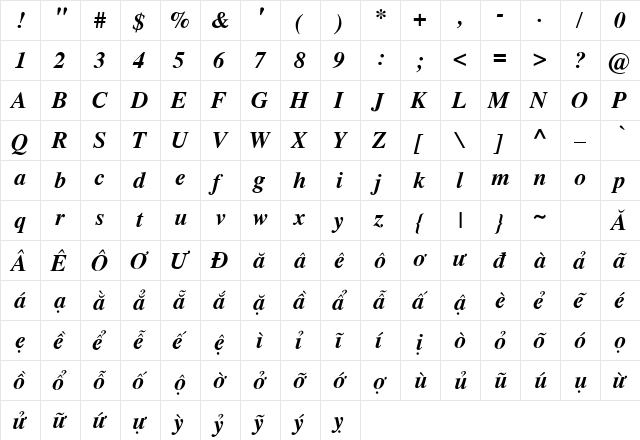
.VnTime Bold Italic
Design Context for .VnTime Typeface
.VnTime takes a measured approach to typography — its balanced proportions and neutral character make it a reliable workhorse for both digital and print work. The slanted form adds forward momentum and visual energy. Its bold stroke weight gives it real presence on the page.